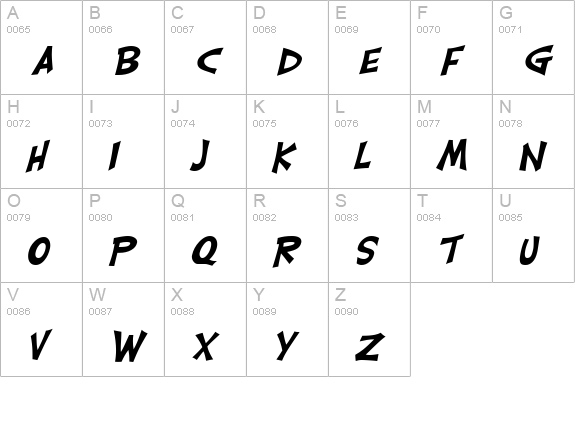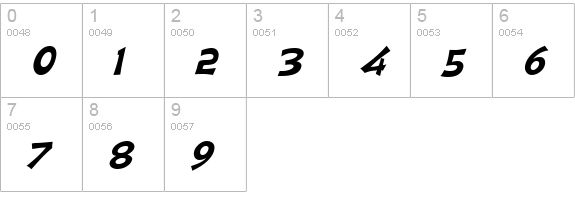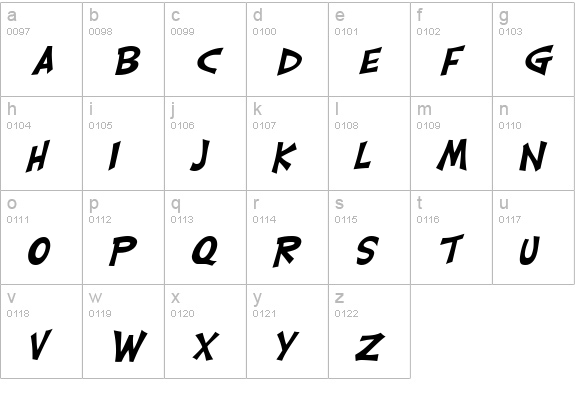
Carlisle Italic Font Details
Carlisle Italic is a distinctive, italic variant in the Carlisle typeface family \xE2\x80\x94 well suited to design and typography projects.
Carlisle Italic is a sleek and modern font that exudes sophistication and elegance. Its italicized style adds a touch of flair to any design project, making it perfect for everything from invitations to branding materials. The graceful curves and slight slant of the letters give Carlisle Italic a sense of movement and fluidity, making it a versatile choice for both print and digital applications. Whether you're looking to add a touch of class to your next project or simply want a font that stands out from the rest, Carlisle Italic is sure to impress. And the best part? Carlisle Italic is available for free download at FontsMarket.com. So you can elevate your designs without breaking the bank. Download Carlisle Italic today and see the difference it can make in your projects.